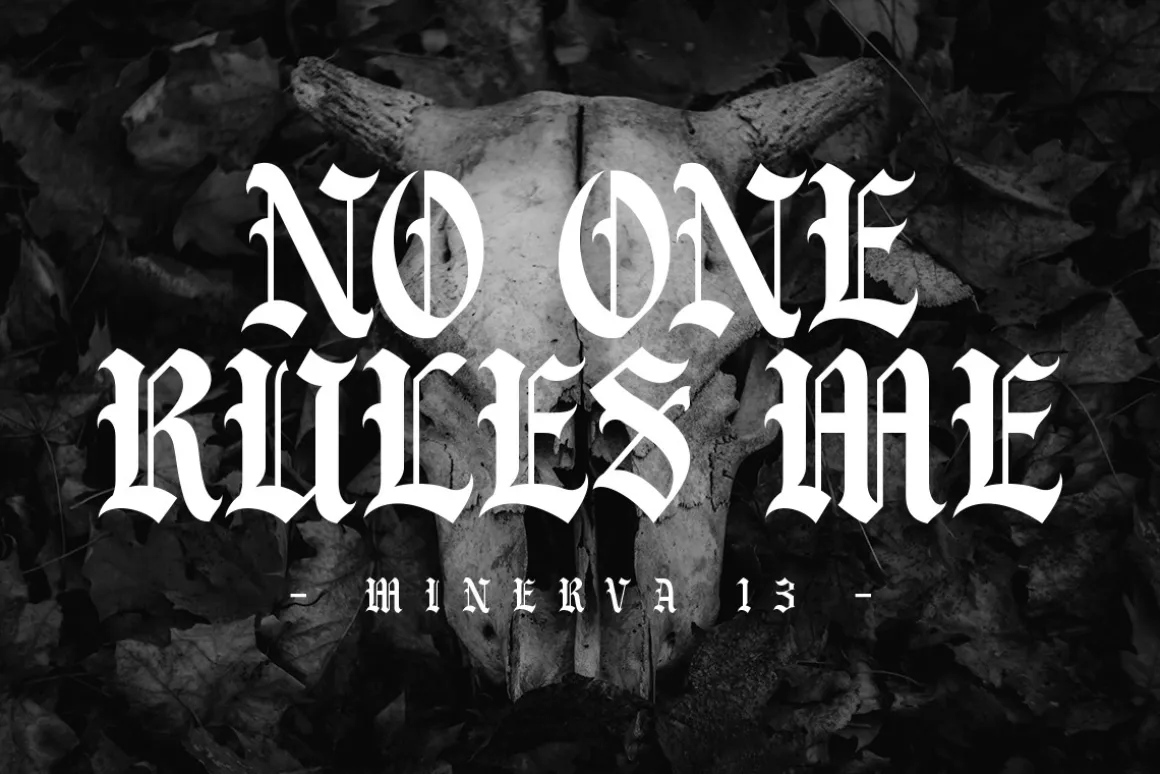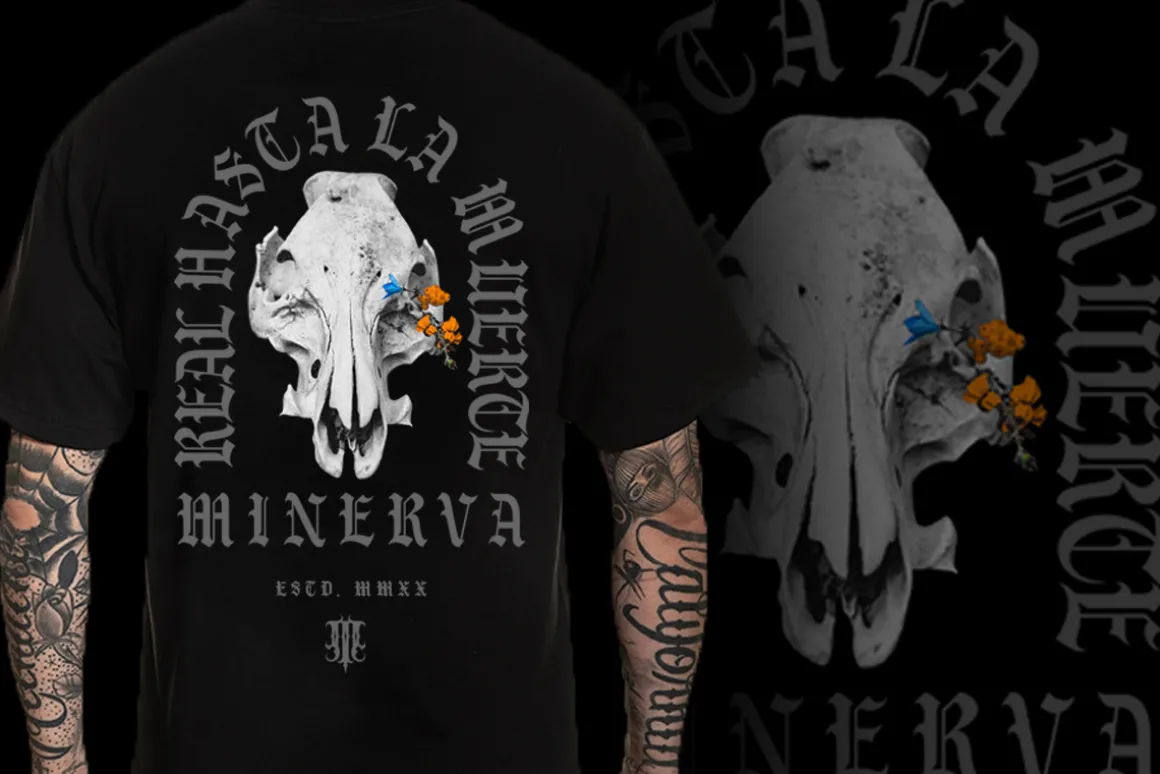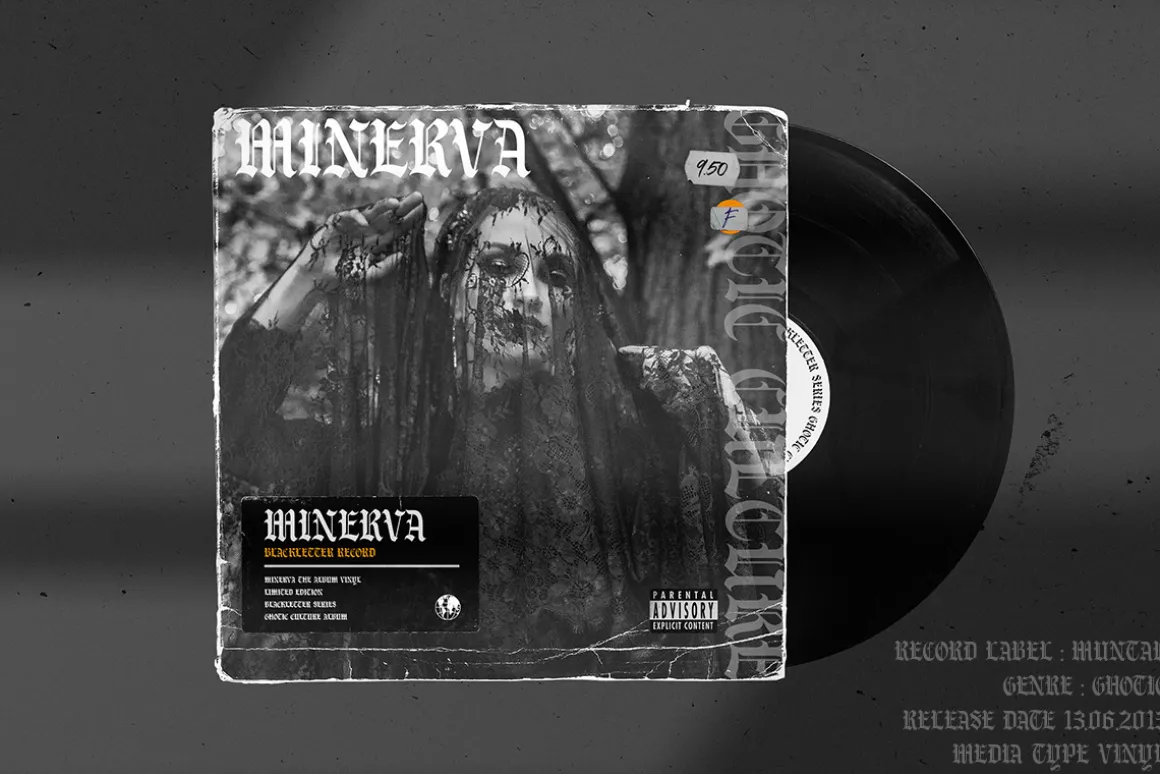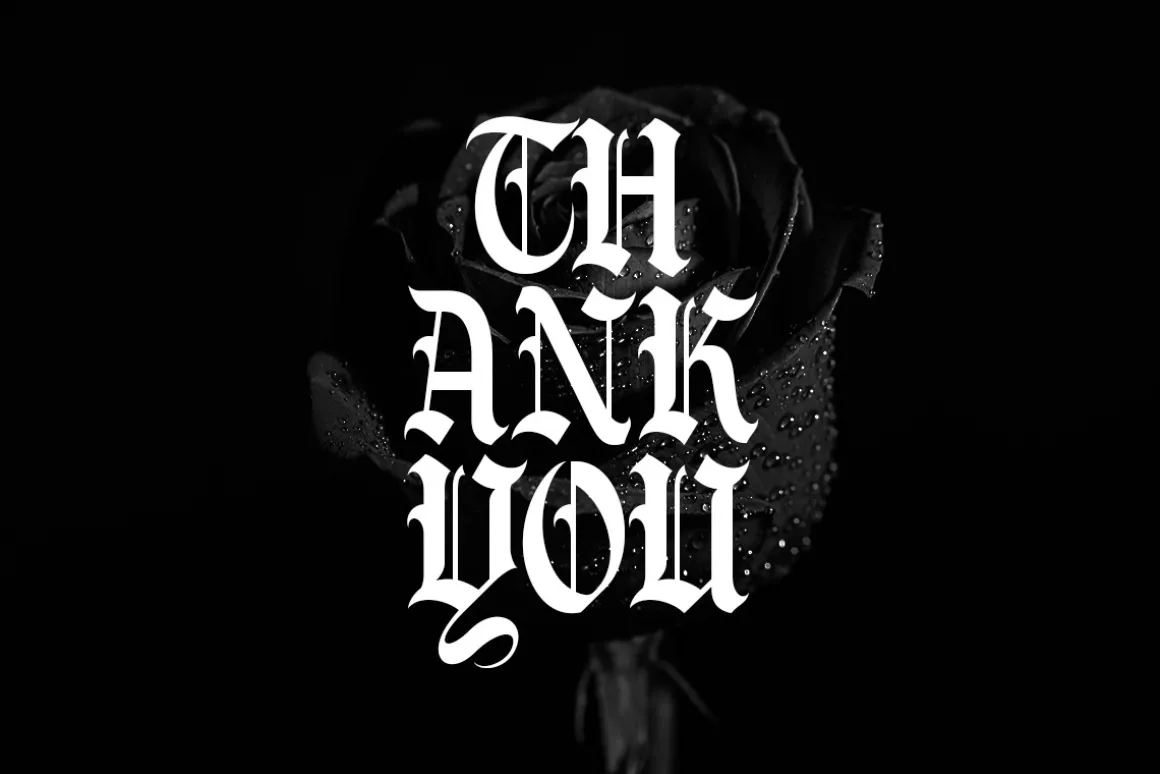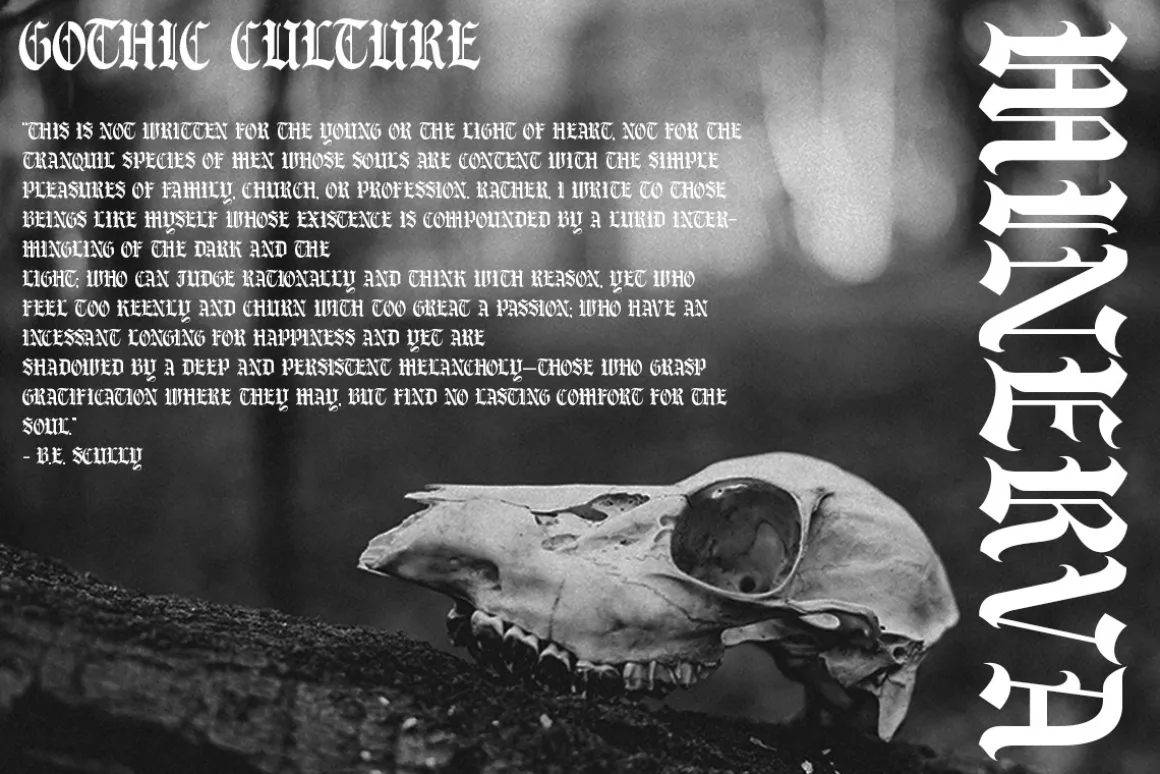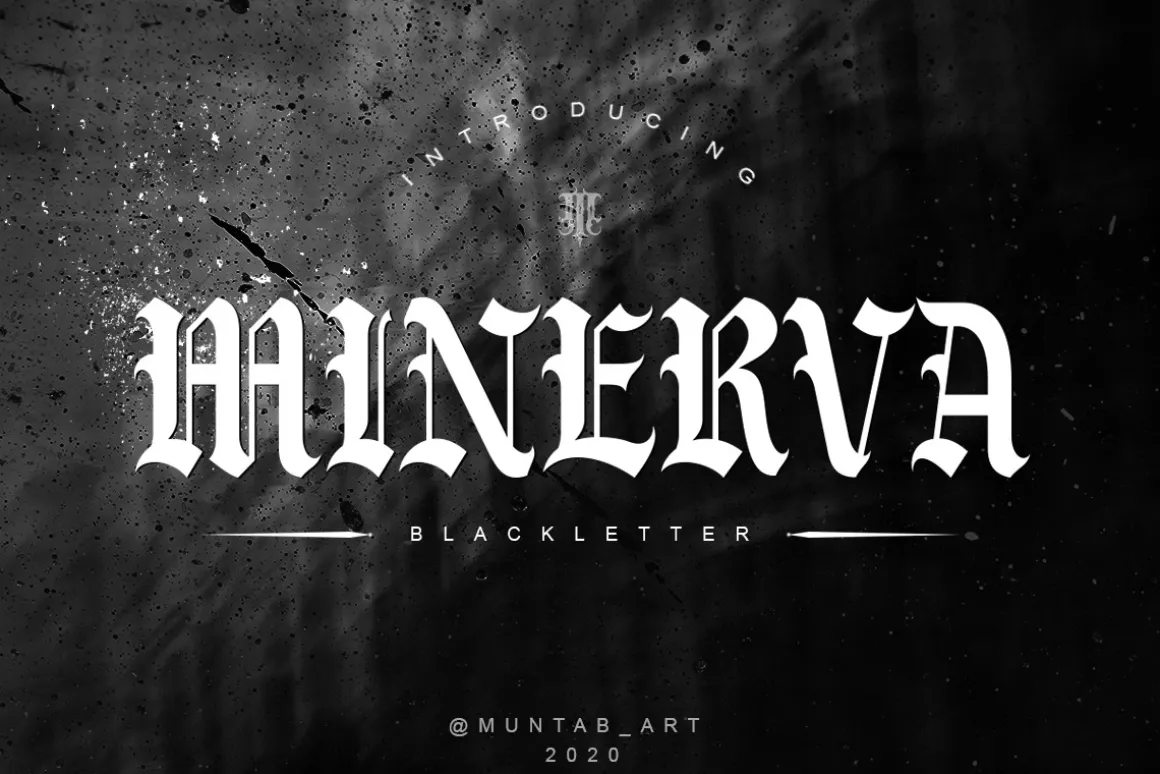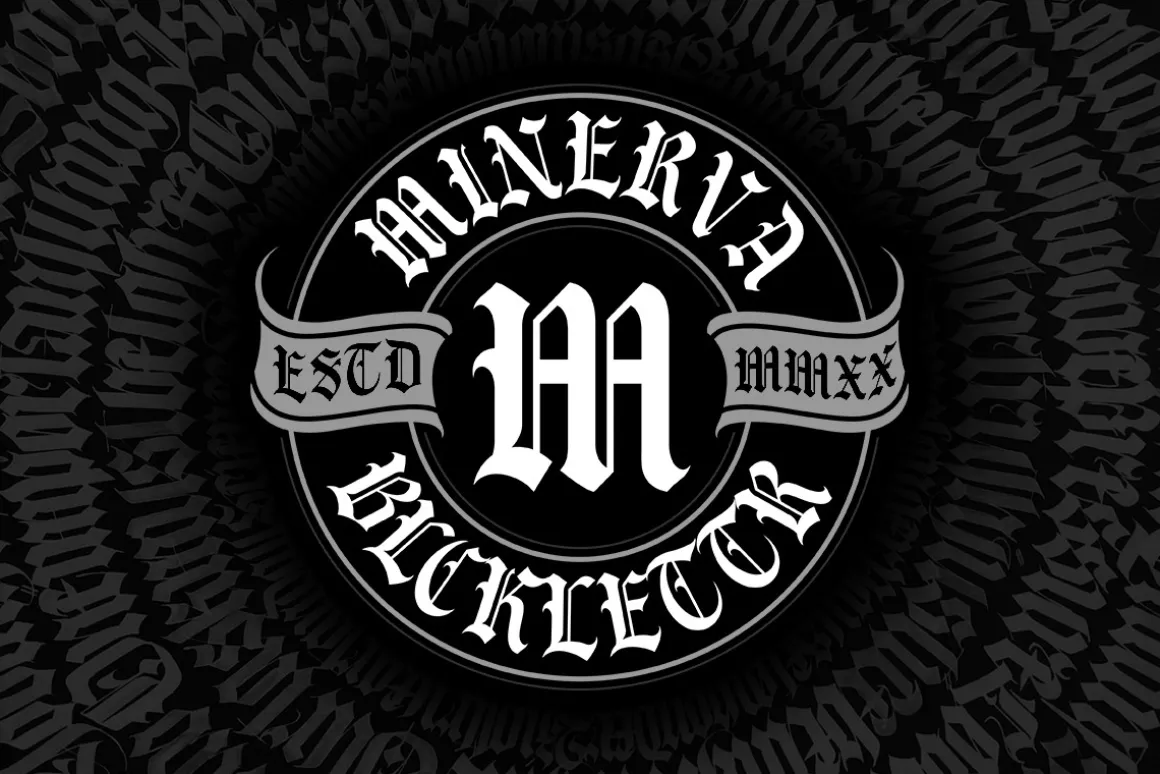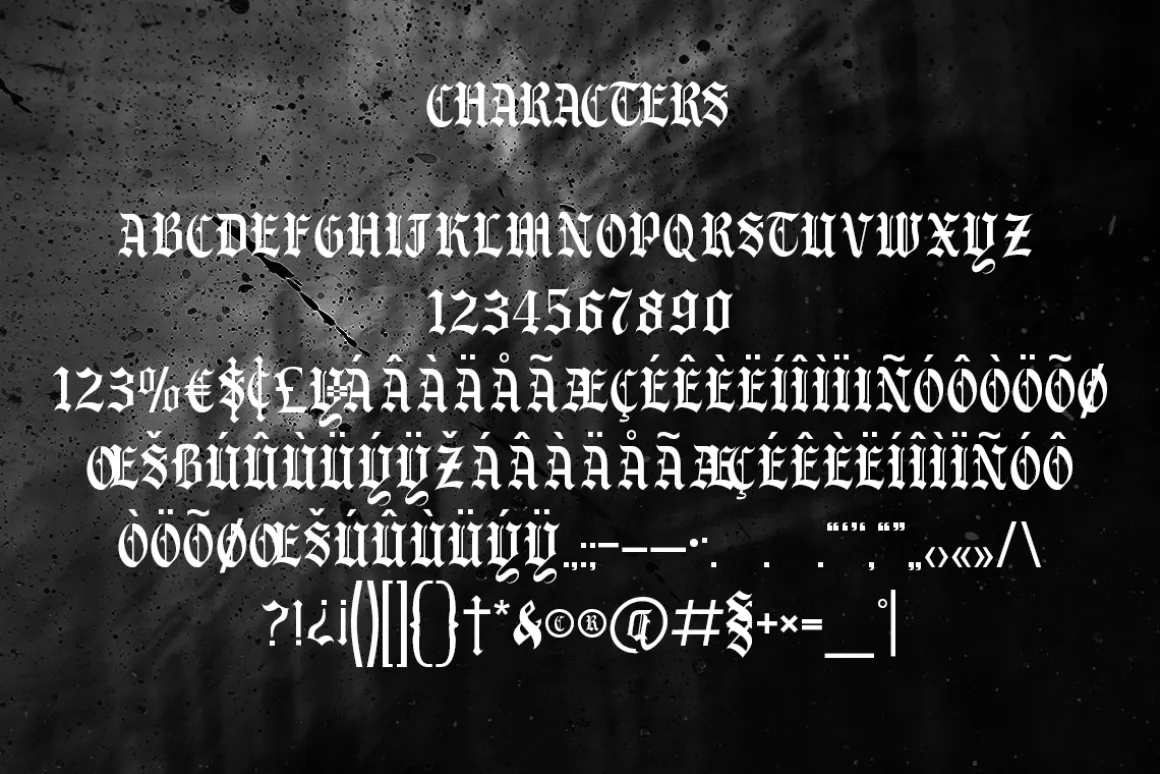
Minerva fonts includes uppercase letters, numerals, a large range of punctuation. Blackletter font with modern style. Created for poster, web design, branding, illustrations, badges, shirt design and some other works.